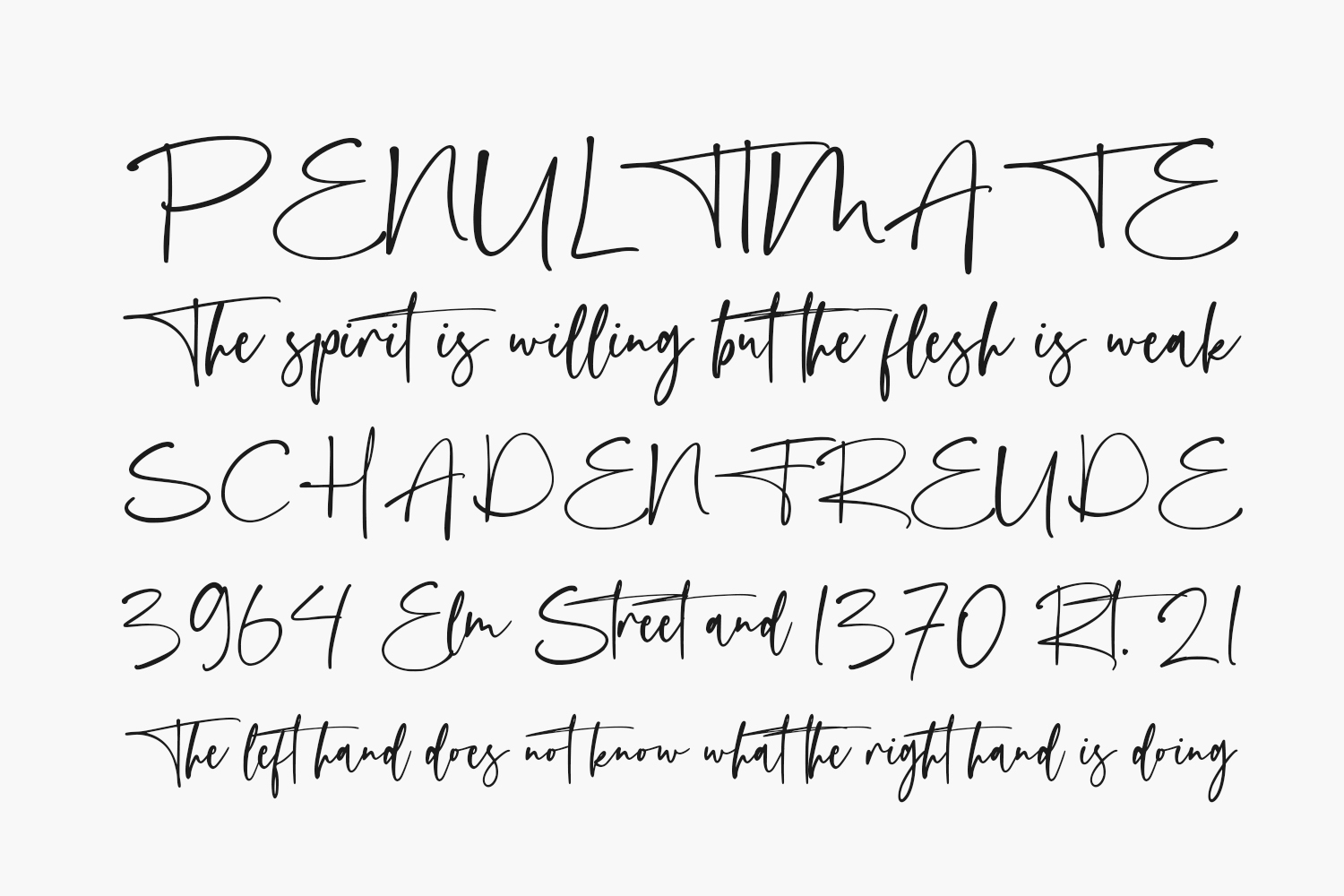
Fautisma Free Font is a unique and simple handwritten font. Whether you’re looking for fonts for Instagram or calligraphy scripts for DIY projects, this font will turn any creative idea into a true piece of art. Fautisma Free Font was designed by Vultype and is free for personal use only. Please purchase the full version for commercial use.